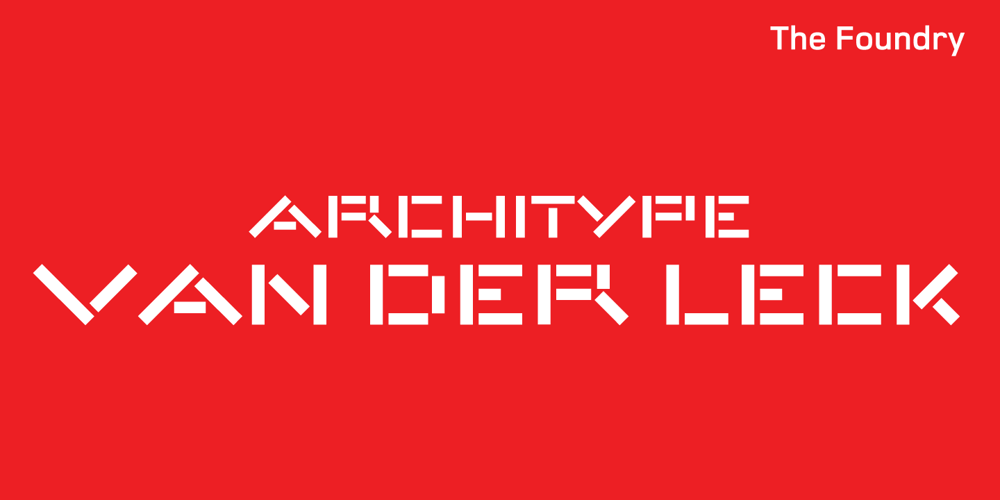
Architype Van der Leck
Architype Van der Leck font
Architype Van der Leck Font Family was designed by Freda Sack, David Quay and published by The Foundry. Architype Van der Leck contains 1 styles and family package options. Architype Konstrukt is a collection of avant-garde typefaces deriving mainly from the work of artists/designers of the inter-war years, whose ideals have helped to shape the design philosophies of the modernist movement in Europe. Due to their experimental nature character sets may be limited. Architype Van der Leck originates from the lettering that Bart Van der Leck created for ‘Flax’ magazine in 1941. The letterforms‘ restricted shapes and abstract, stencil-like forms reflect the strong geometric language of De Stijl and show influence from his abstract paintings.